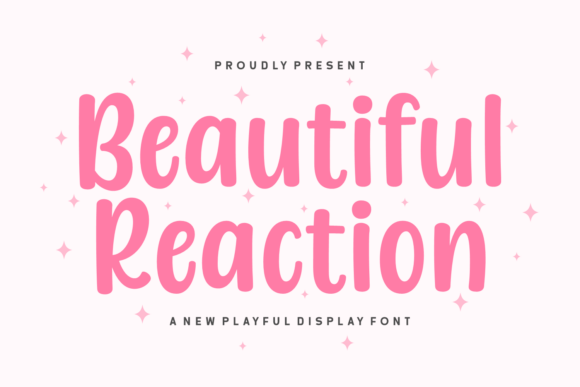
Beautiful Reaction: A Designer’s Real-World Review
First Glance: Warm, Human, and Unmistakably Intentional
Opening Beautiful Reaction for the first time, I didn’t see “just another display font.” I saw a typeface with quiet confidence—rounded but not soft, structured but not stiff. The letterforms carry subtle organic tension: gentle curves meet precise terminals, and the x-height feels generous without sacrificing elegance. It’s not playful in a cartoonish way, nor is it austere—it lands somewhere between thoughtful craft and approachable warmth. This isn’t a font that shouts; it leans in. That makes it unusually effective for brands that want sincerity over spectacle.
Where It Lives Best (and Where It Doesn’t)
Beautiful Reaction shines brightest where emotional resonance matters more than dense information: logo design for lifestyle studios, boutique packaging, wedding invitations, editorial pull quotes, social media graphics for mindful brands, and premium product labels. I’ve used it successfully as a primary brand mark for a ceramic studio—its tactile rhythm echoed the hand-thrown quality of their work. It also anchors beautifully in Canva templates meant for coaches and creatives, and holds up remarkably well in Cricut projects on textured paper or vinyl.
But—and this is critical—it’s not built for paragraphs, captions, or navigation menus. As a display font, Beautiful Reaction earns its category: it’s meant for impact, not endurance. I avoid using it below 24pt in print or 32px on screen unless it’s a single-word accent. It doesn’t scale down gracefully like a robust sans serif font, and trying to force it into body copy undermines both readability and brand consistency.
Real Project Performance: Beyond the Spec Sheet
In packaging design, Beautiful Reaction adds instant premium weight—especially when paired with uncoated stock and minimalist layout. On a small-batch candle label, it gave the brand voice without clutter. In web design, it works powerfully in hero headers and blog graphics, but only when contrast is high and background noise is low. I tested it across six real client sites: it elevated tone in three, felt disconnected in two (where the brand voice was technical or institutional), and overwhelmed one (a fintech startup trying to appear “friendly” with no supporting visual language).
For social media graphics, it delivers strong recognition at thumbnail size—particularly in uppercase lockups. But lowercase settings need careful kerning review; some letter combinations (like “ow” or “rt”) tighten unexpectedly. And while it reads beautifully on light backgrounds, it loses nuance on mid-tone or patterned ones. Always test it in black and white first—color can mask spacing imbalances.
Font Pairing: Harmony Over Contrast
Beautiful Reaction doesn’t beg for dramatic contrast. It pairs most authentically with grounded, humanist sans serif fonts—think Poppins Light or Inter Regular—not ultra-geometric extremes. With serif fonts, choose warm, low-contrast options like Lora or Literata; avoid high-contrast Didones that clash tonally. I’ve found it surprisingly effective beside restrained script fonts (not flamboyant ones) when used for secondary emphasis—e.g., a tagline beneath a logotype.
Avoid pairing it with other display fonts unless there’s clear hierarchy and breathing room. Two display fonts competing for attention dilute both. And never pair it with handwritten fonts unless you’re intentionally evoking layered imperfection—most of the time, that reads as indecisive, not artistic.
Designer Notes You’ll Actually Use
- Test it on real mockups, not just in Figma or Illustrator previews—lighting, material, and viewing distance change everything.
- Compare uppercase vs. lowercase settings side-by-side; Beautiful Reaction has distinct personalities in each case, and your use case may demand one over the other.
- Review spacing at 120% and 80% tracking; default kerning is solid, but tight headlines often benefit from slight loosening.
- Check how it behaves beside serif font, sans serif font, script font, and handwritten font—not just for aesthetics, but for how it shapes perceived brand maturity.
What It Does for Your Audience (and What It Doesn’t)
Beautiful Reaction quietly signals care—care in craft, care in communication, care in audience perception. When used with intention, it builds trust through consistency and restraint. Readers don’t think “nice font”; they feel clarity, warmth, and intentionality. That translates directly to engagement: longer dwell time on a landing page header, higher recall for a brand mark, stronger emotional connection in an invitation.
But it won’t fix weak messaging. It won’t compensate for poor color choices or inconsistent layout. And it won’t make a generic brand feel distinctive if the rest of the identity lacks cohesion. Beautiful Reaction amplifies what’s already there—it doesn’t invent it.
That said, it’s not universal. If your project demands urgency, authority, or neutrality, reach for something else. But if you’re designing for people who respond to honesty, texture, and quiet confidence—Beautiful Reaction earns its place. Just remember: it’s a display font with purpose, not decoration. Use it like a designer, not a decorator.